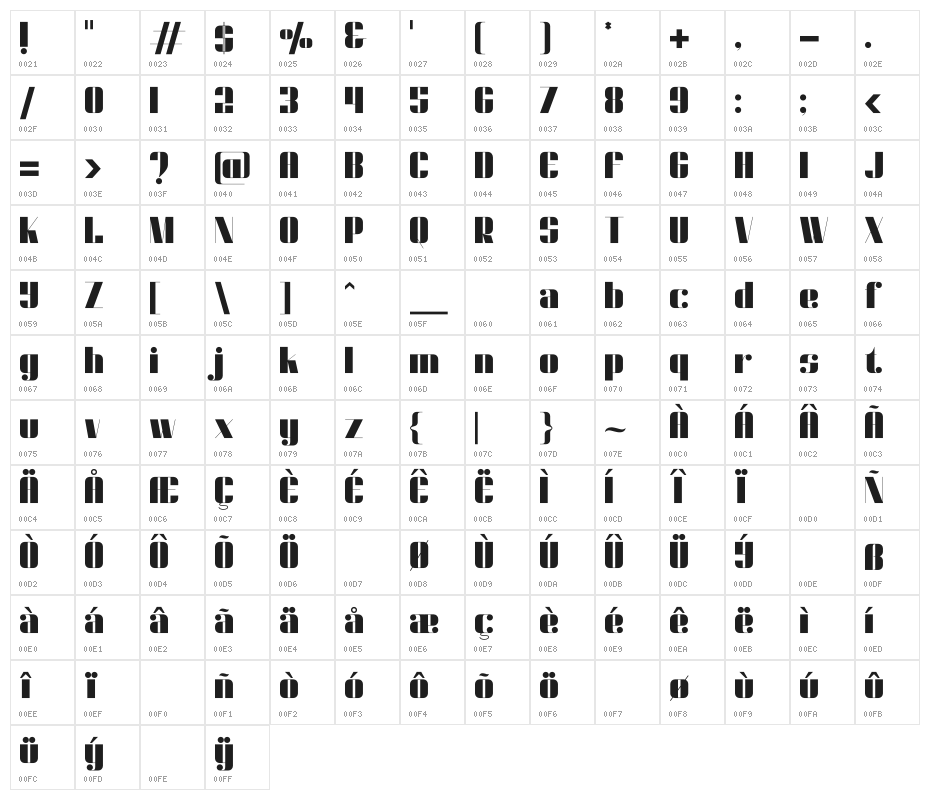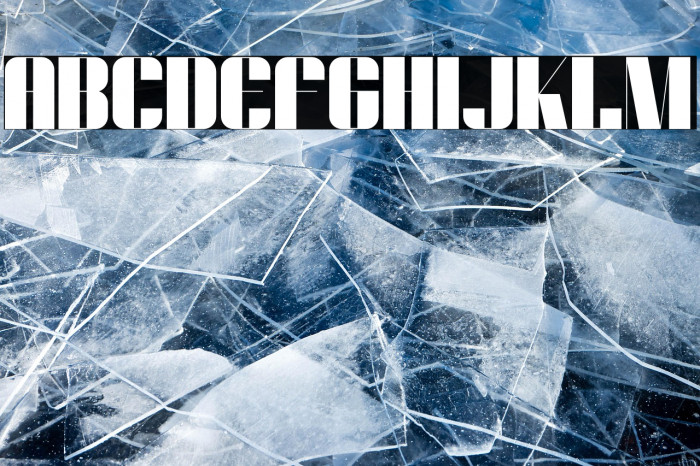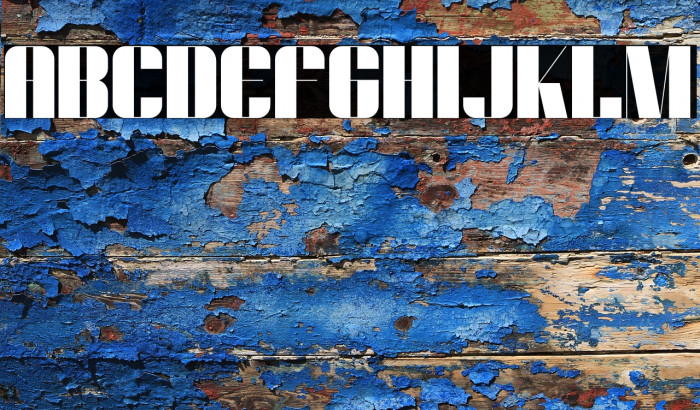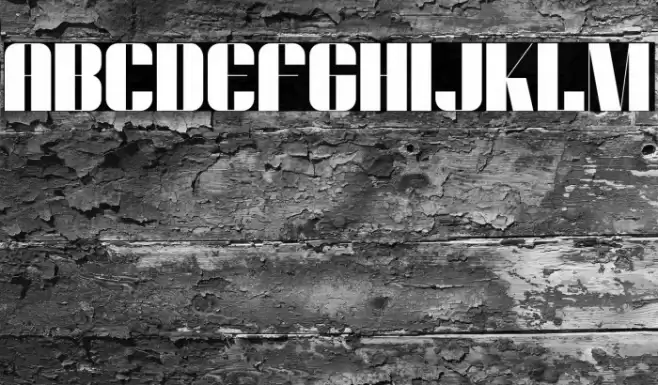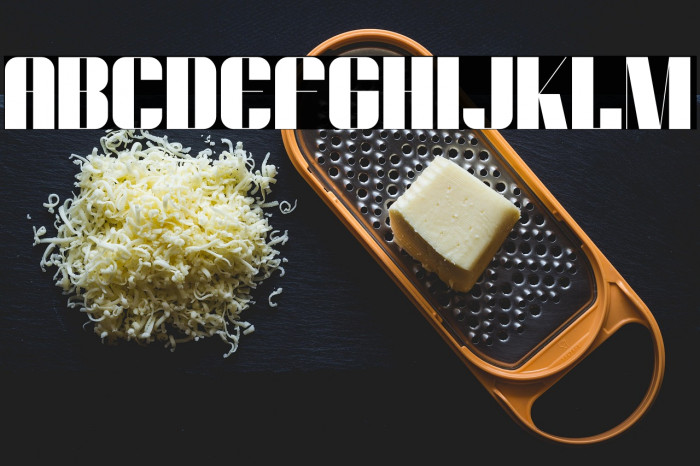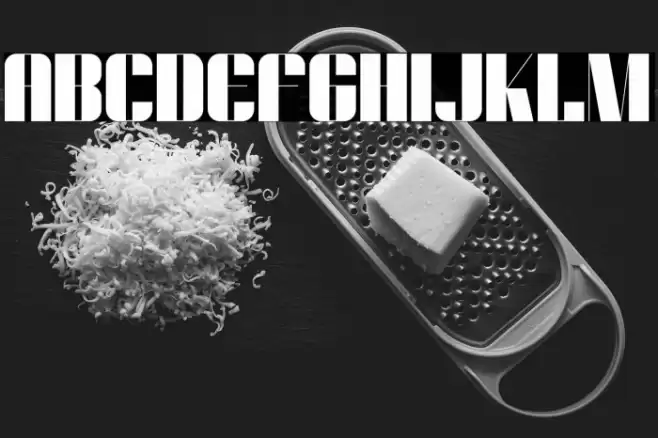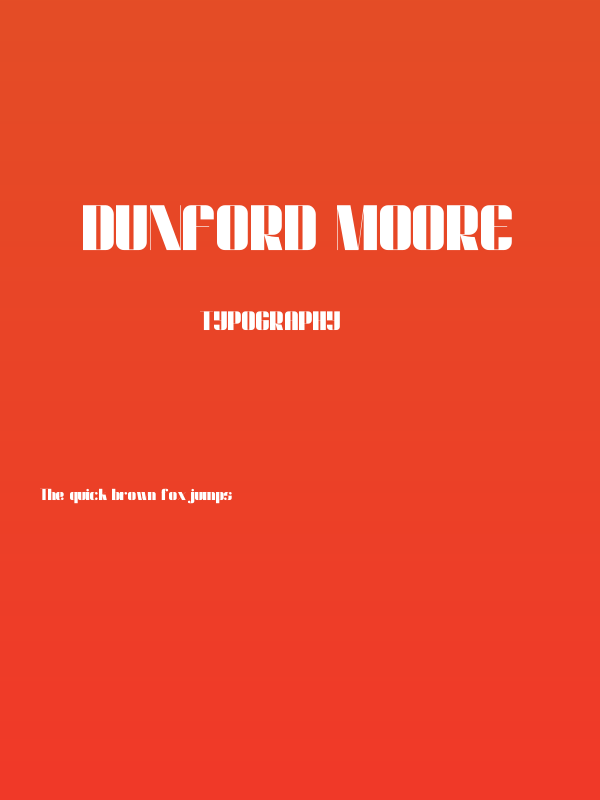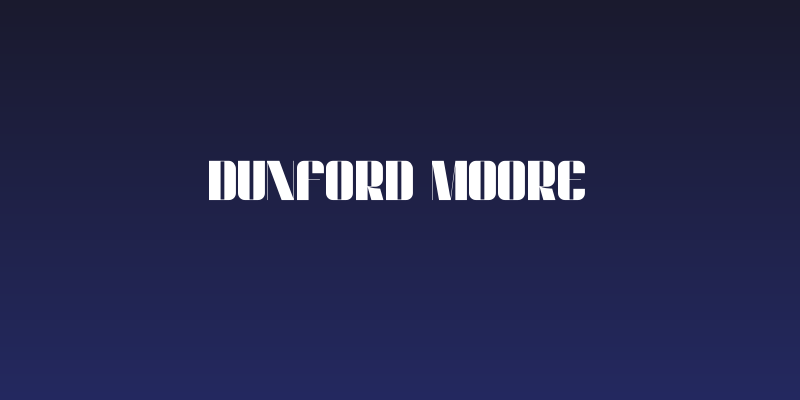
Dunford moore Font
Dunford moore Description
This font features a bold and striking design with a high contrast between thick and thin strokes, creating a dramatic and eye-catching appearance. The uppercase letters are particularly wide and imposing, while the lowercase letters maintain a consistent boldness with rounded edges that add a touch of softness to the overall look. The numerals are equally bold, ensuring they stand out prominently. Special characters are designed with the same boldness, making them suitable for attention-grabbing headlines or statements. The font's unique style makes it ideal for projects that require a strong visual impact.
| Proposed Projects | Ideal for branding, posters, headlines, and any design requiring a strong visual impact. |